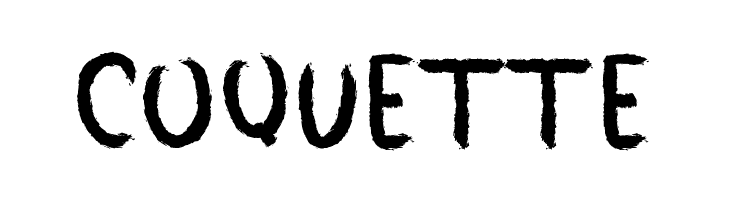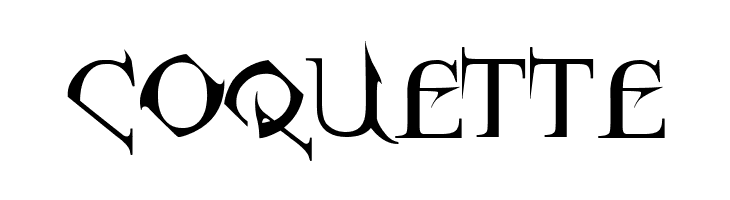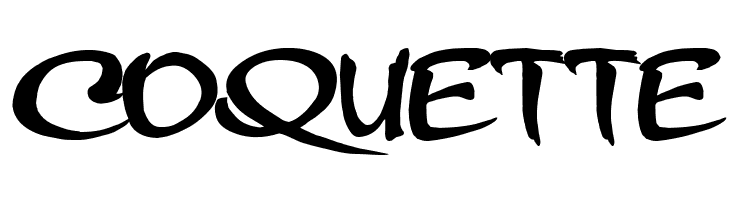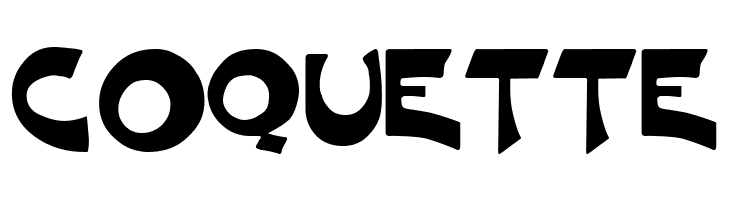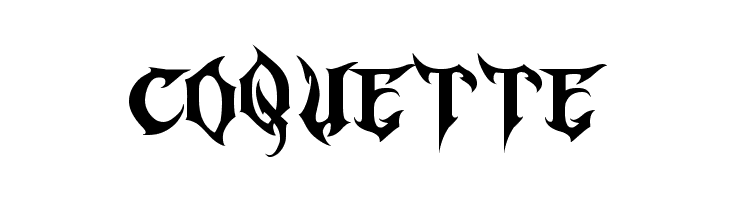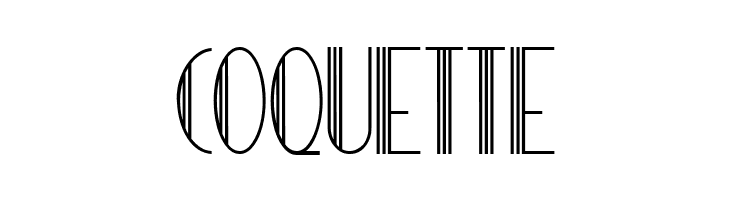
A dynamic, calligraphic font with bold, sweeping strokes and a modern flair.
A bold, angular font with a playful, artistic style.
A modern, condensed sans-serif font with a clean and geometric design.
A playful, bold font with rounded edges and a smooth, dynamic flow.
A playful, bold font with rounded edges and a whimsical style.
A bold, jagged font with an eerie, horror-inspired style.
A bold and intricate Blackletter font with sharp, angular lines and dramatic flourishes.
A dramatic, Gothic-inspired font with sharp, angular lines and intricate detailing.
A decorative, Art Deco-inspired font with elongated, narrow letterforms and geometric elegance.
A whimsical, vintage-style font with bold serifs and playful character shapes.